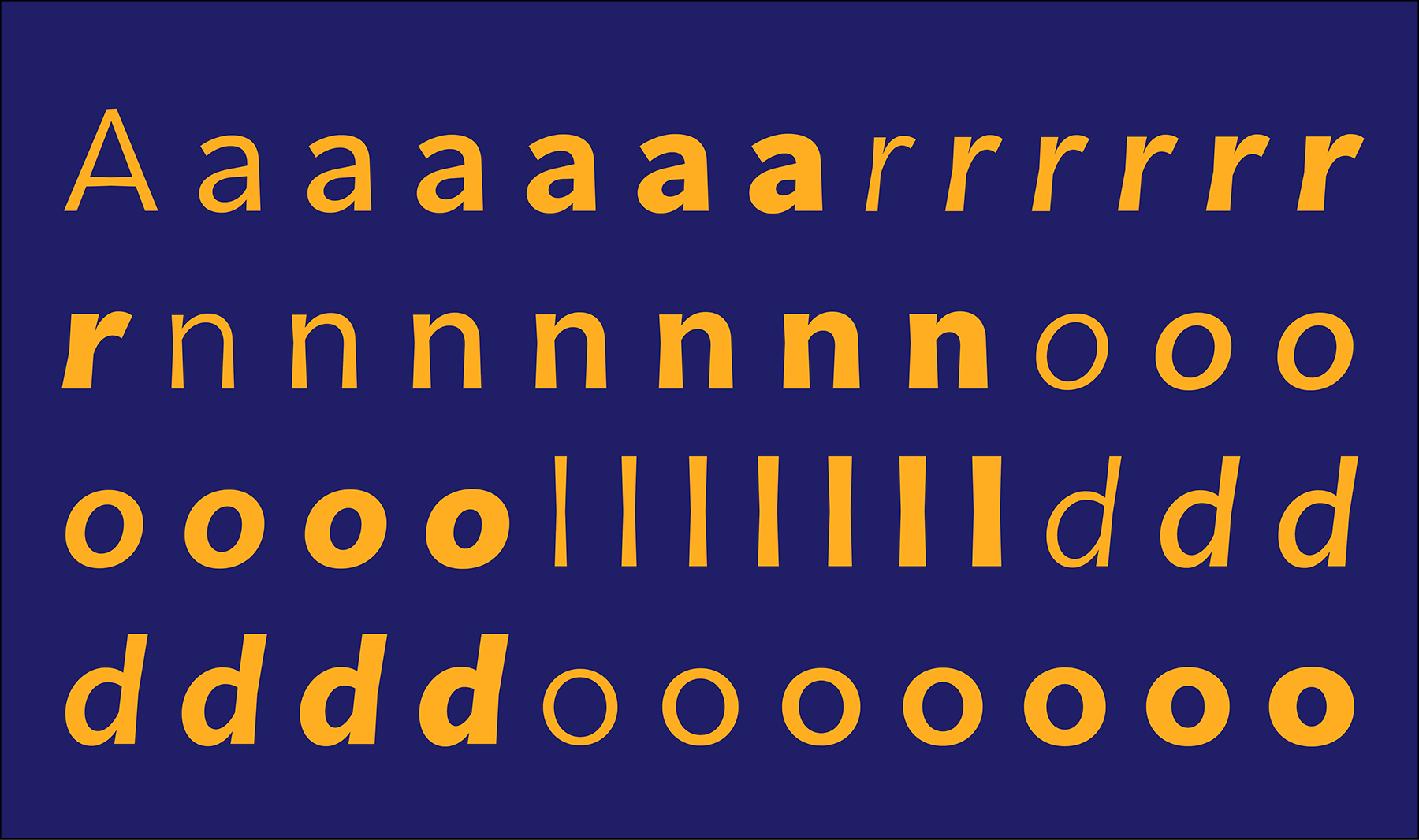
LFT Arnoldo in motion
In the battle of charisma, LFT Arnoldo wins with intelligence, influence, and refinement. Introducing Leftloft’s newest font family, LFT Arnoldo: rational, contemporary, and with an engraved look.
LFT Arnoldo is a flared humanist sans that is intelligent and refined. Its chiseled structure sets dramatic titles worthy of any classic work, and its calm and dependable nature grounds paragraphs in the now. LFT Arnoldo intends to be a resilient type family for centuries to come, especially considering the added benefit of containing the variable font format. Its seven roman weights have italic counterparts and the entire family is loaded with OpenType features: alternates, ligatures, small caps, oldstyle and lining numerals, and science and math capabilities. In the battle of charisma, where the right voice must project intelligence, influence, and refinement, LFT Arnoldo is the victor.